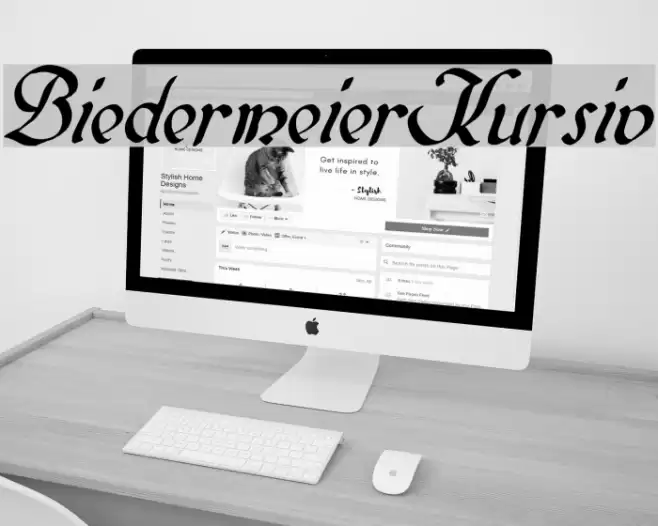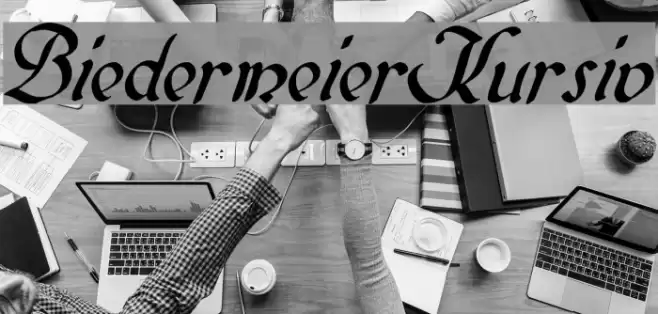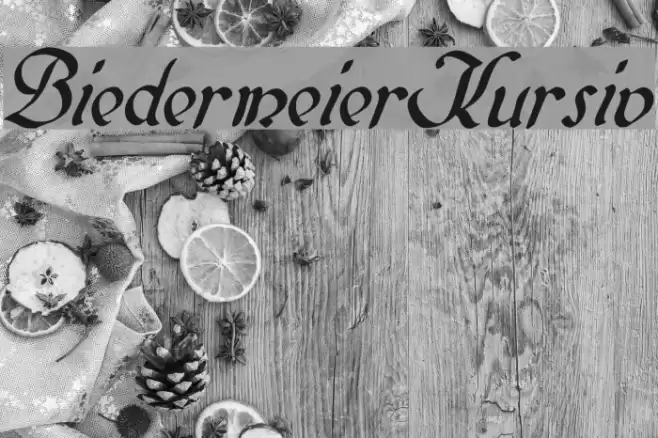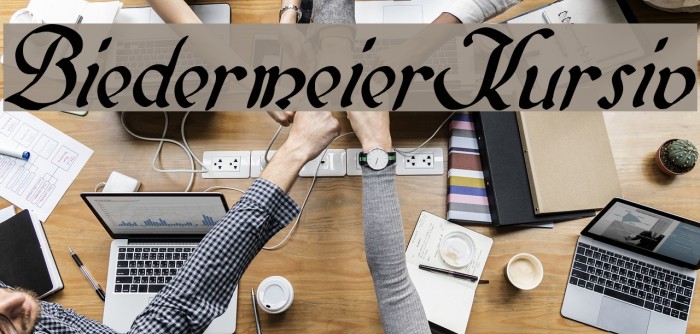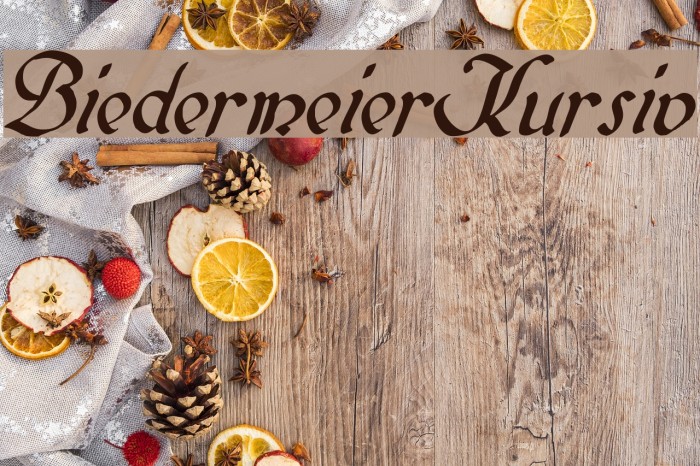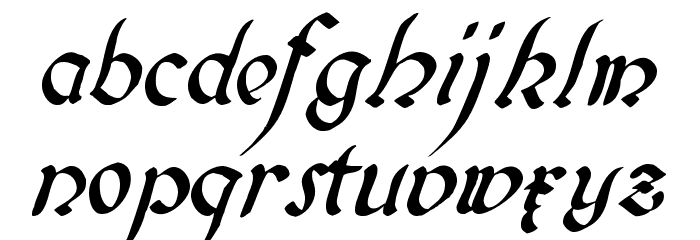
BiedermeierKursiv Font
BiedermeierKursiv Description
This font exhibits a classic and elegant cursive style, reminiscent of historical scripts with a modern twist. The characters are intricately designed with flowing strokes and a slight slant, giving it a sophisticated and artistic appearance. The uppercase letters are bold and ornate, while the lowercase letters maintain a consistent flow, enhancing readability. The numbers and special characters follow the same stylistic cues, ensuring uniformity across all glyphs. This font's unique design makes it suitable for projects that require a touch of elegance and tradition.
A classic cursive font with elegant, flowing strokes and a sophisticated style from Uncategorized fonts.
- Proposed Projects: Ideal for wedding invitations, formal event programs, historical documents, and elegant branding materials.
- Overall Style: Classic
- Use Case: Headlines, Invitations, Logos